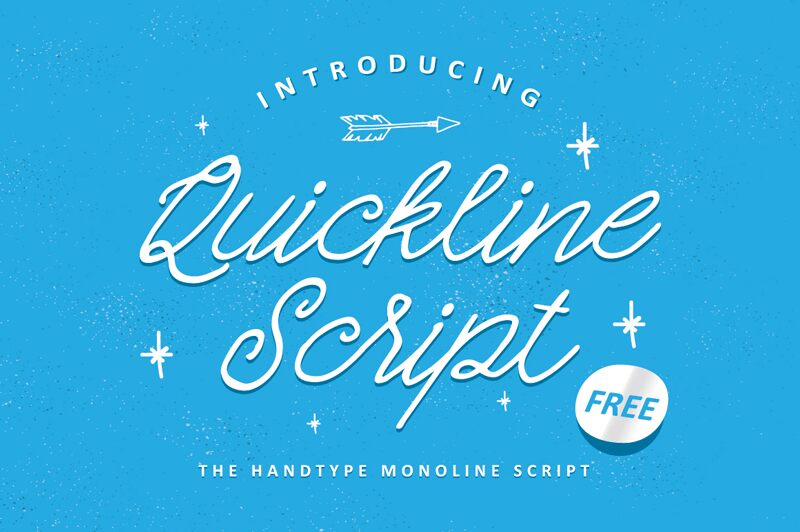
Quickline Script is a monoline hand type script font with the hand draw design style. It is highly suitable for poster, branding, logo, wedding card, etc. You can easily give the feel of hand type design style into your project.